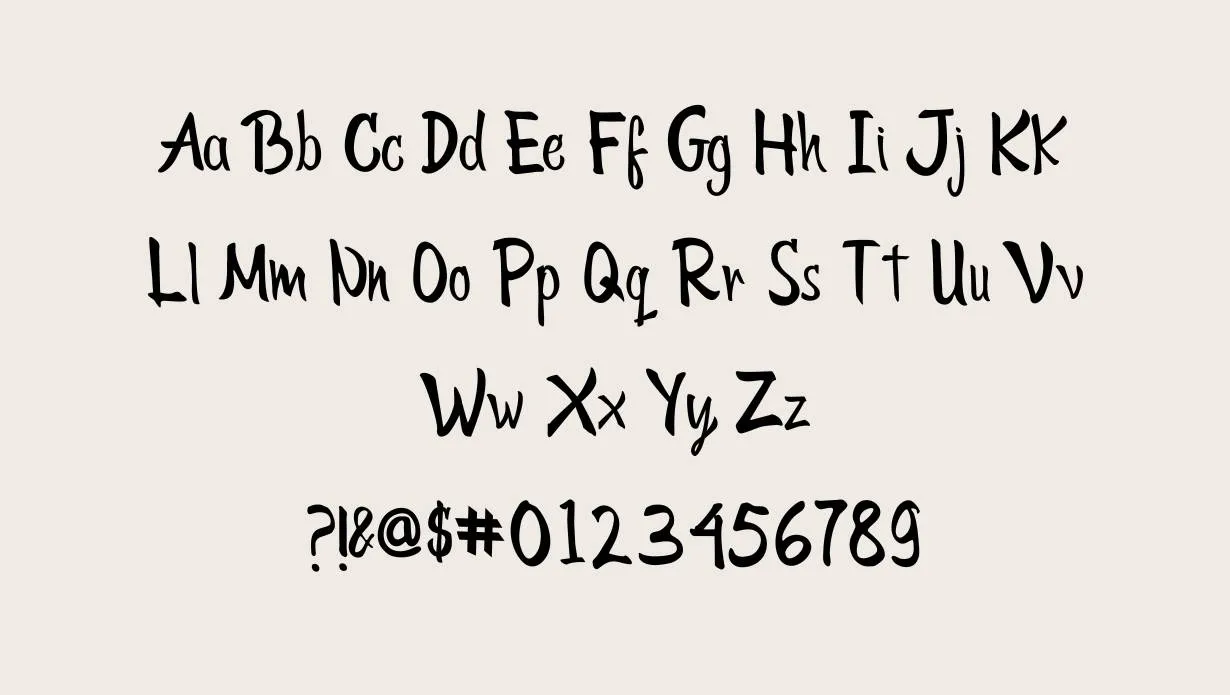
The Tokyo Street font is a sleek and modern typeface used in designs aiming for a clean and contemporary look. Its sharp and stylized letters make it suitable for conveying a polished and dynamic feel.
This font is often used in posters, branding, or editorial content. The weight of Tokyo Street font varies from regular to bold, offering options for different design needs. Elevate the aesthetic appeal and precision of your design by pairing the typeface style with other fonts, such as the chicken hut font, available on our website.
| Name | Tokyo Street Font |
| Designer | Welianto |